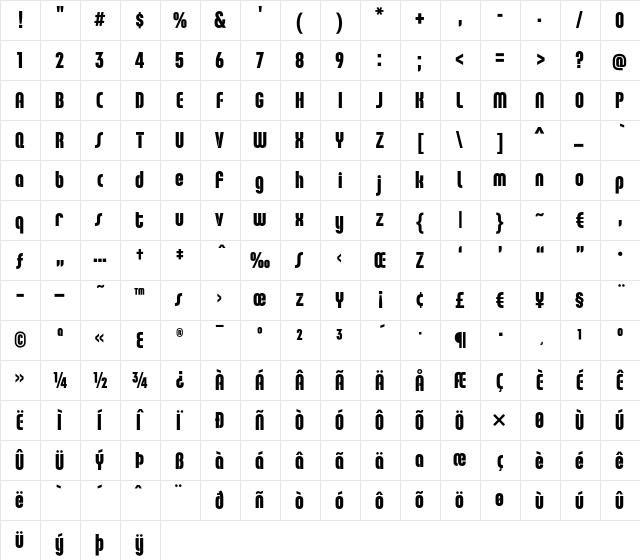
ChaletComprime-LosAngeles Regular
Design Context for ChaletComprime-LosAngeles Typeface
ChaletComprime-LosAngeles offers clean, dependable letterforms without strong stylistic allegiance, making it a practical choice for designers who need flexibility.
Pro Tip: Pair ChaletComprime-LosAngeles with a font of contrasting weight or personality to build a more expressive typographic hierarchy.